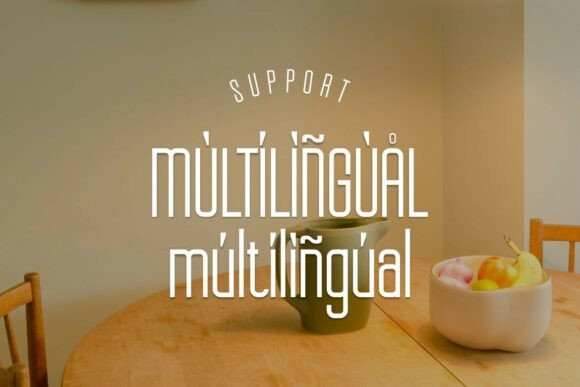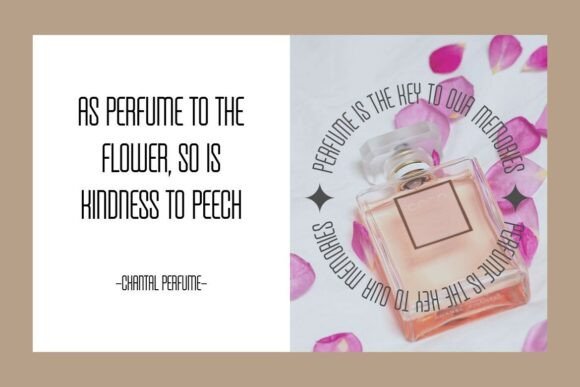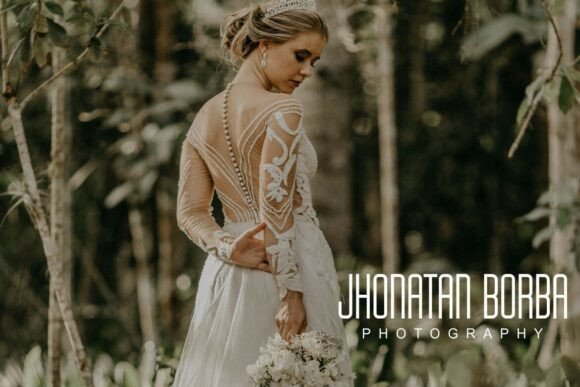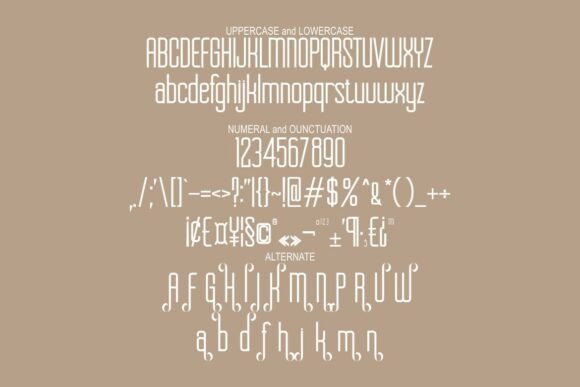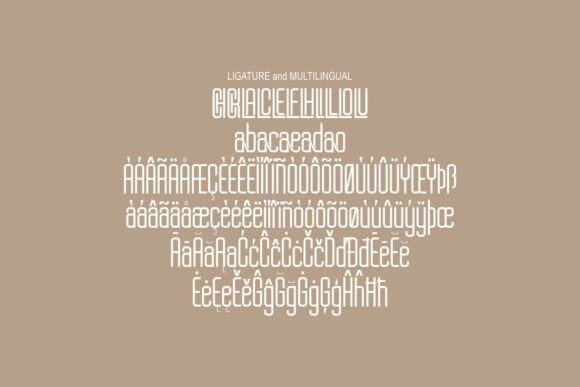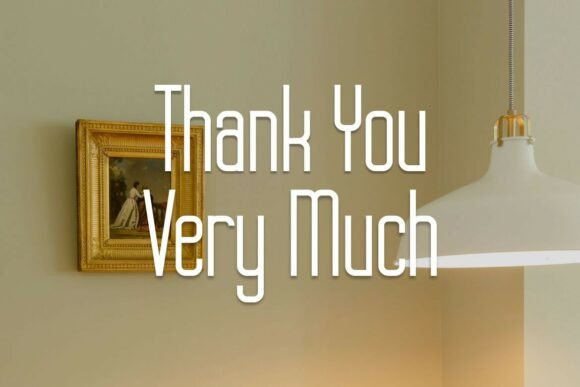
Introduction to Ramola Font Font
Fonts play a crucial role in design, and the Ramola Font font is a typeface that brings both character and versatility to any project. Whether you’re working on a branding project, a website, or a print design, the Ramola Font font offers a unique style that can elevate your work.
| 📌 Font Name | Ramola Font |
| 👤 Author | Kenrichi |
Elevate your contemporary designs with Ramola, a modern sans serif.
Its clean lines and minimalist aesthetic make it an exceptional choice for architecture-themed branding, high-end real estate marketing, and professional web headers Provided in a crisp, high-resolution format, Ramola offers a polished and authoritative look for the modern designer.
Key Features of Ramola Font Font
Why Choose Ramola Font Font?
The Ramola Font font is more than just a typeface – it’s a design tool that helps you communicate your message with style and clarity. Its unique character set and versatile design make it suitable for a wide range of applications, from elegant invitations to bold headlines.
With its carefully crafted letterforms and balanced proportions, the Ramola Font font ensures readability and visual appeal across all mediums.
What makes Ramola Font font special?
The Ramola Font font stands out with its unique design, exceptional readability, and versatility across various design applications.